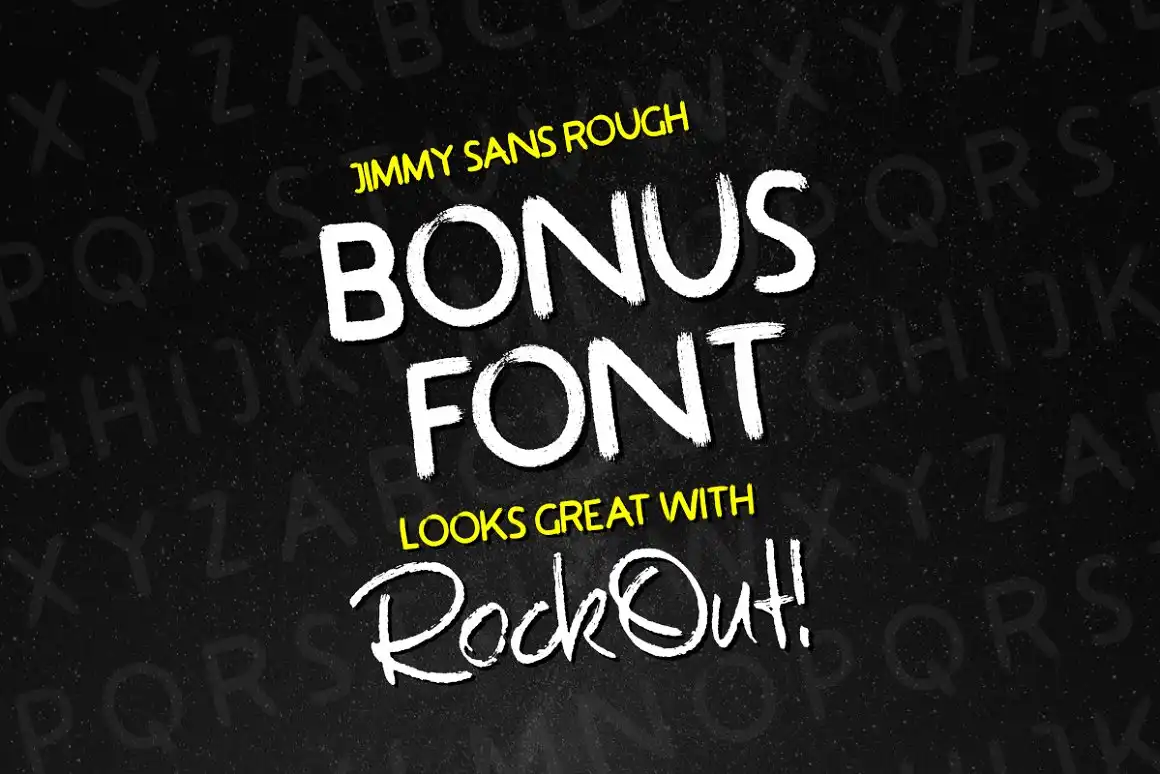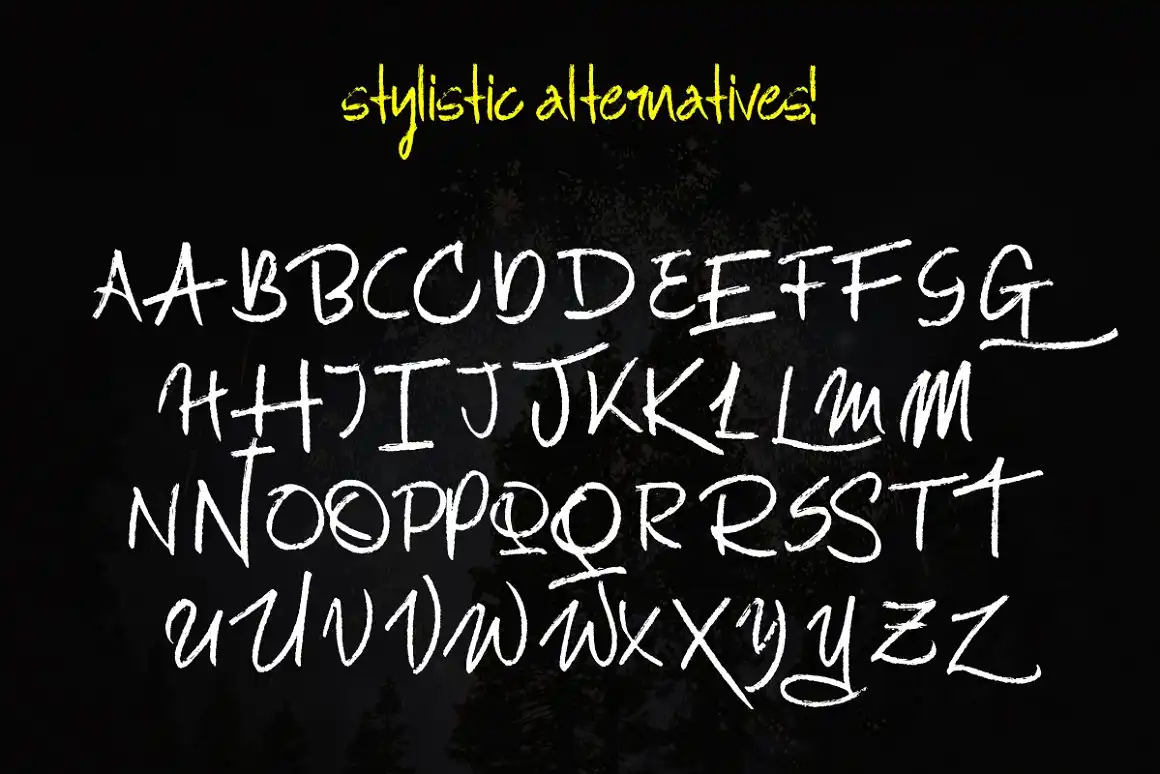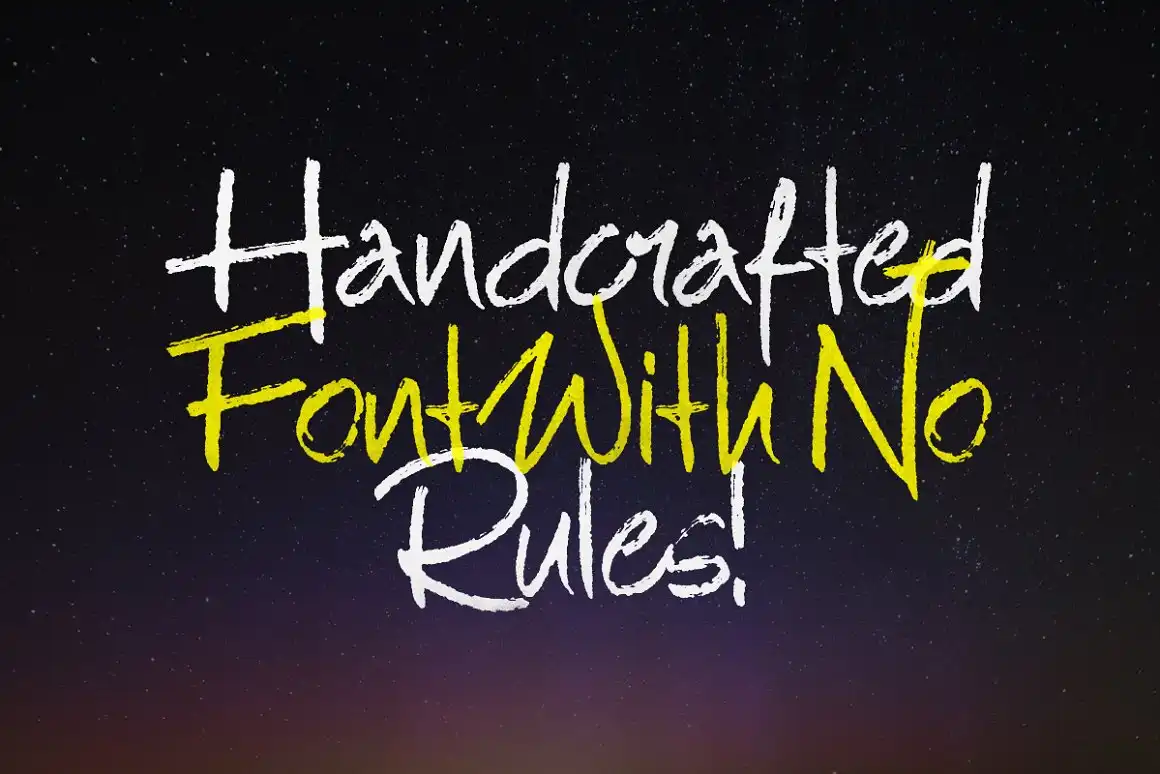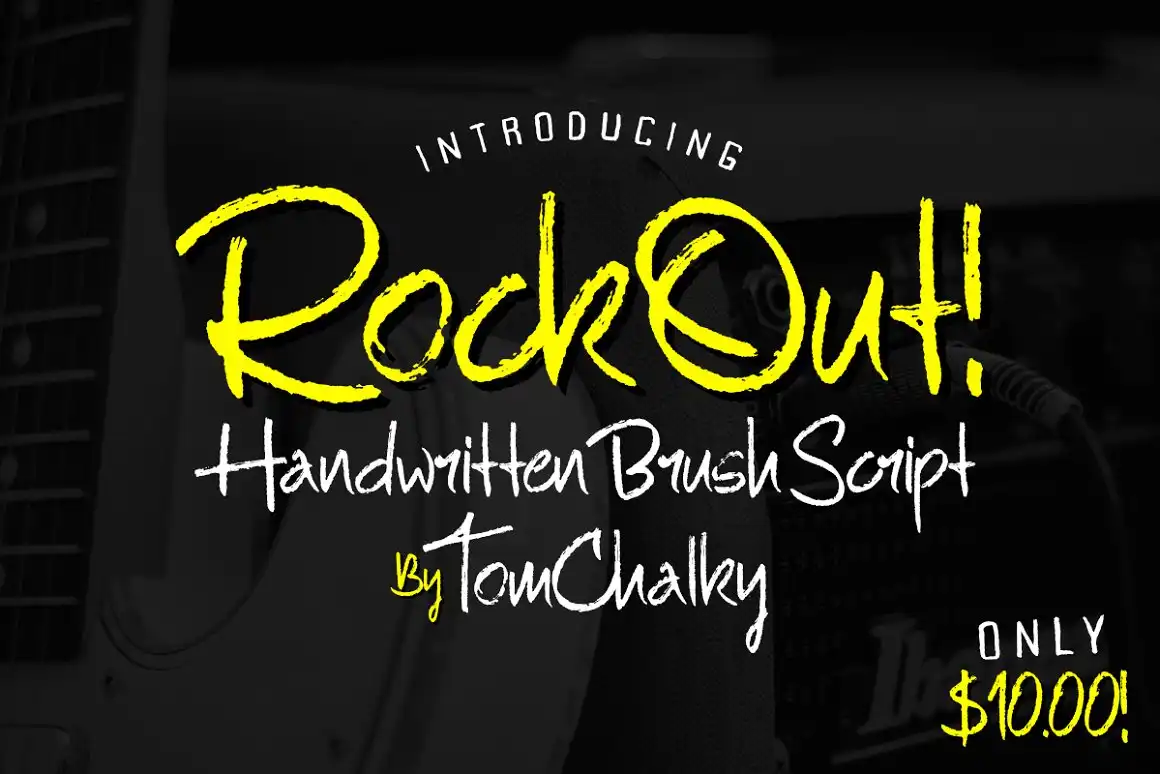
Rock Out! Script + Bonus Font
Looking for a standout font that screams creativity? Meet Rock Out! 🎸 This digital download features an energetic Brush Script display font, perfect for projects that need a loud and rough edge! Instantly accessible, you can start using it right away.
Rock Out is designed to be both bold and legible, making it the ideal choice for everything from band logos to creative titles. With its unique flair, this font is sure to make your designs pop! Plus, it comes with Jimmy Sans Brush, a fantastic bonus font that pairs beautifully with Rock Out.
- Handcrafted with a Brush Pen: Adds a unique, authentic touch to your typography.
- Stylistic Alternatives: Offers multiple options for each uppercase letter, enhancing your creative expression.
- Uppercase and Lowercase Glyphs: Versatile for all your design needs!
- Multilingual Glyph Coverage: Perfect for international projects, ensuring your designs reach a wider audience.
This font is ideal for graphic designers, logo creators, and anyone looking to add a touch of rock ‘n’ roll to their projects! Whether you’re designing for a band, creating promotional materials, or crafting unique titles, Rock Out! will bring your vision to life.